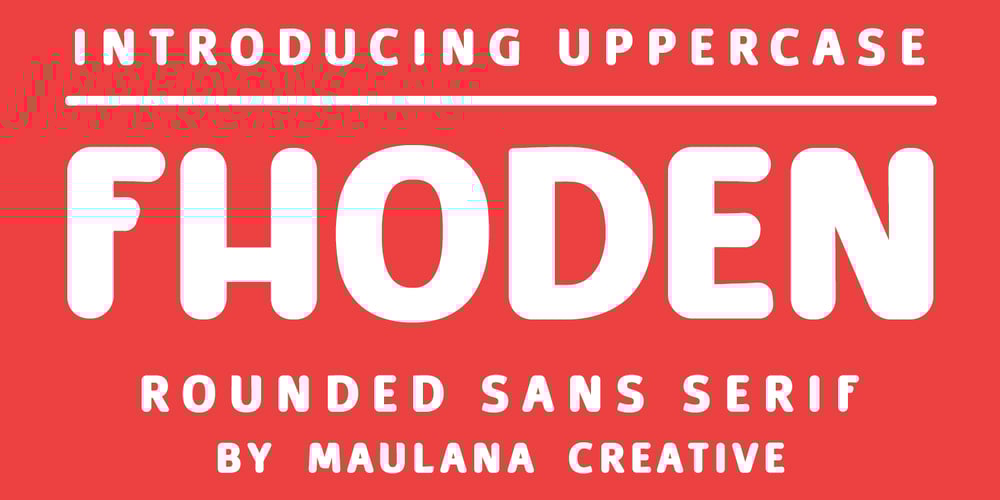
MC Fhoden Font Family was designed by Gilang Maulana and published by Maulana Creative. MC Fhoden contains 1 styles and family package options. Fhoden is a fancy modern rounded all Caps sans serif font. With bold tall and rounded stroke, fun character with a bit of ligatures and alternate. To give you an extra creative work. Fhoden font support multilingual more than 100+ language. This font is good for logo design, Social media, Movie Titles, Books Titles, a short text even a long text letter and good for your secondary text font with sans or serif. Make a stunning work with Fhoden font.